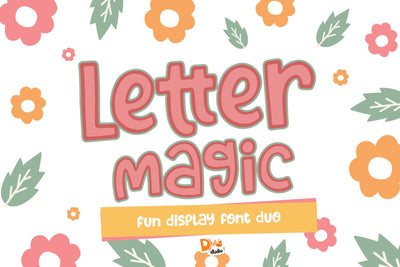
Letter Magic
Letter Magic – Fun Display Font Duo
Letter Magic is a whimsical and versatile display font duo that blends bold character with playful charm. This delightful pair includes a vibrant display font and a quirky handwritten companion—perfect for mixing and matching to create eye-catching designs. Whether you're working on children's books, branding, or colorful social posts, Letter Magic adds a dose of personality and fun.
Font Duo Package: Includes both a bold display font and a handwritten accent font for creative combinations.
Whimsical & Bold: A perfect balance between playful curves and striking letterforms.